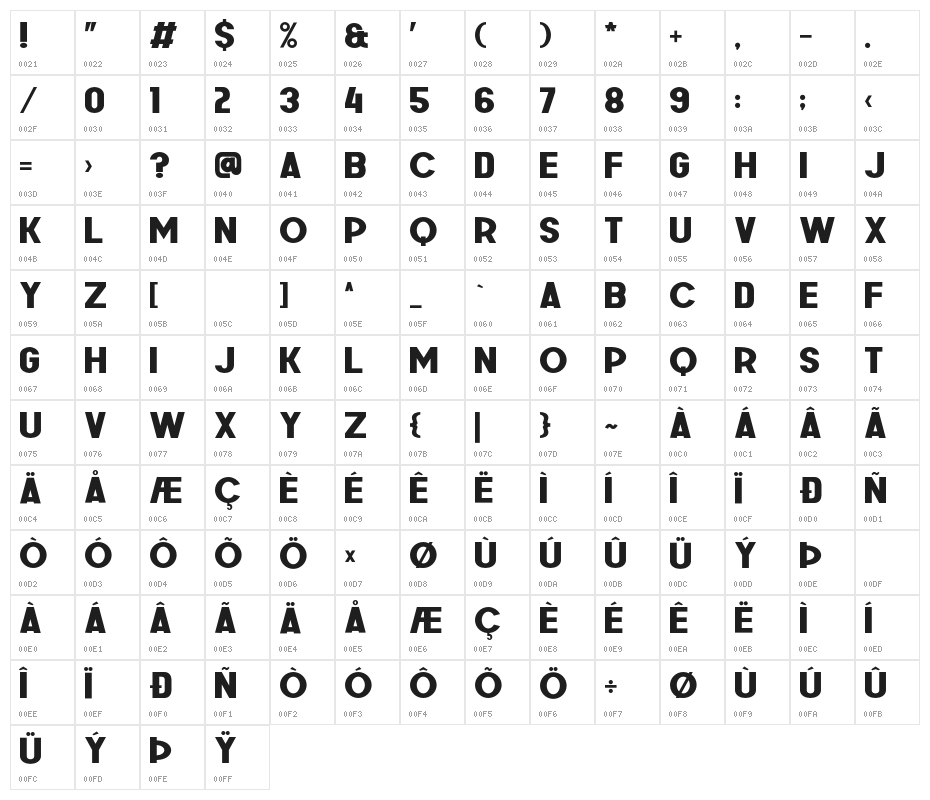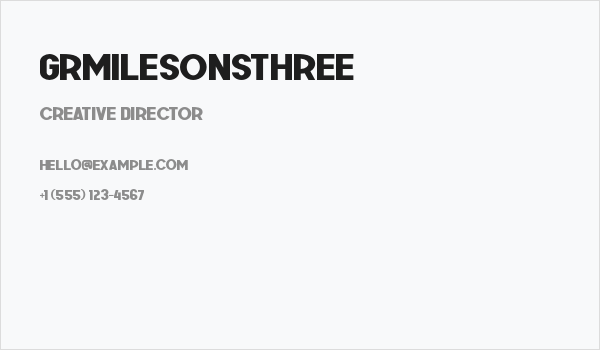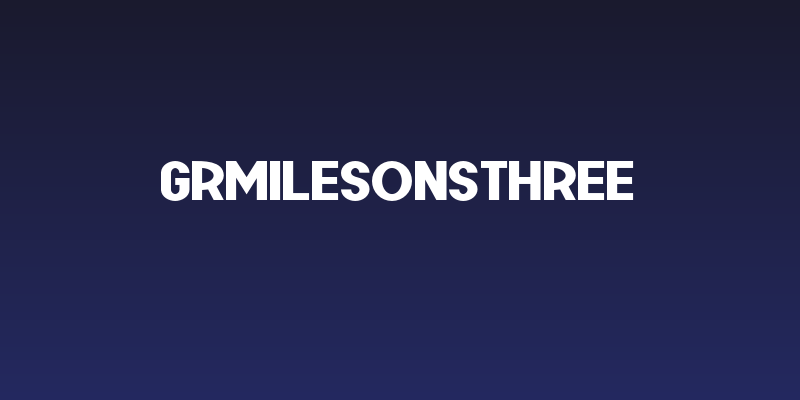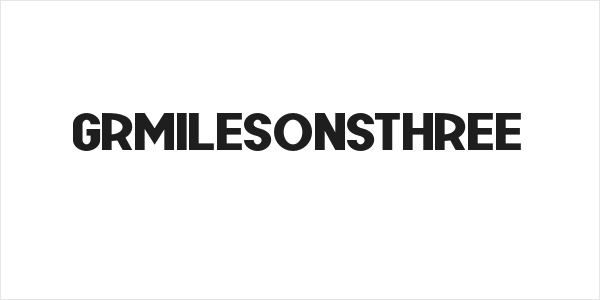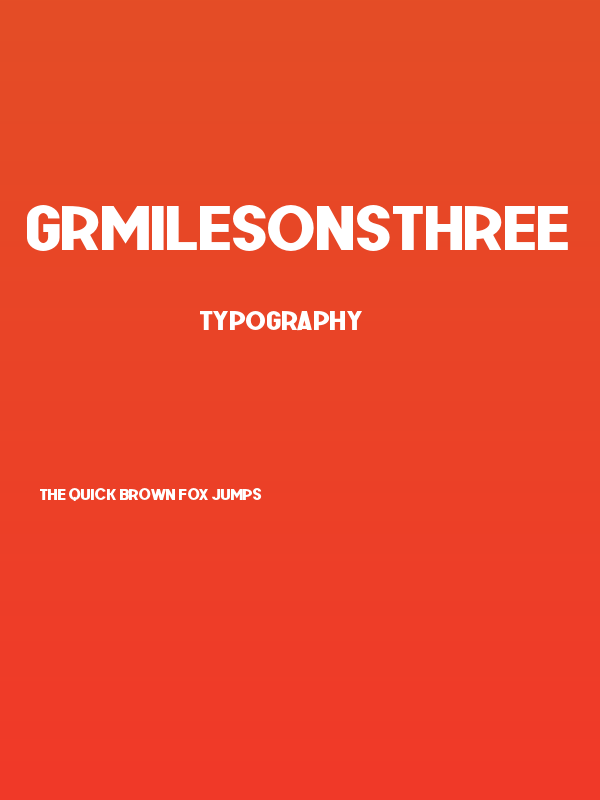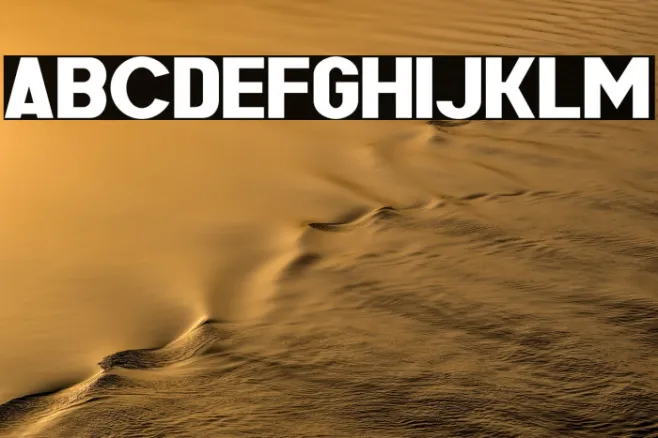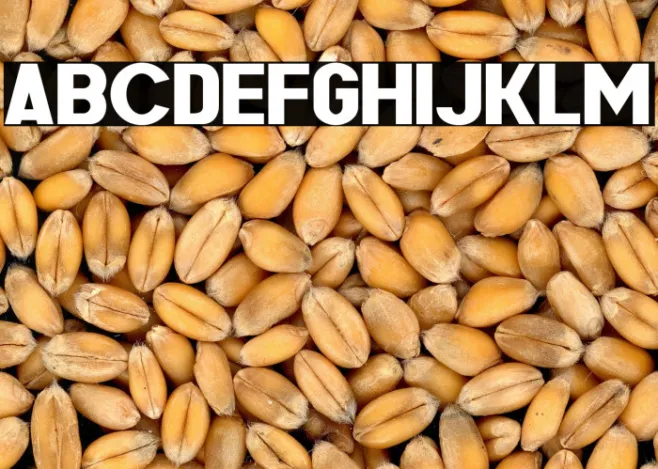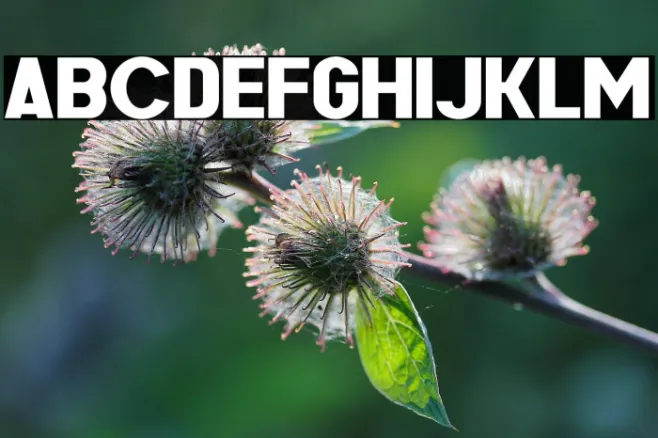
GRMilesonsThree Font
GRMilesonsThree Description
This font features bold, geometric letterforms with a strong presence. The characters are uniformly thick, providing a robust and impactful appearance. The uppercase letters are particularly striking, with a consistent height and width that convey a sense of stability and confidence. The numerals and special characters maintain the same boldness, ensuring a cohesive look across all elements. The overall design is clean and modern, making it suitable for a variety of applications where clarity and emphasis are needed.
| Proposed Projects | Ideal for branding, headlines, posters, and signage where a strong visual impact is desired. |